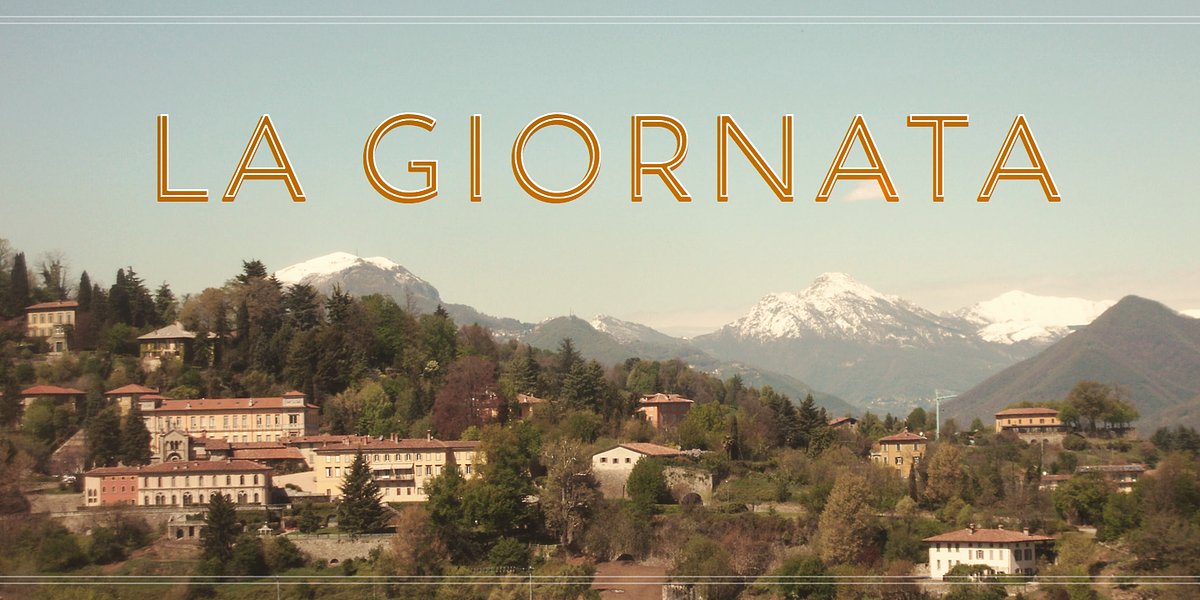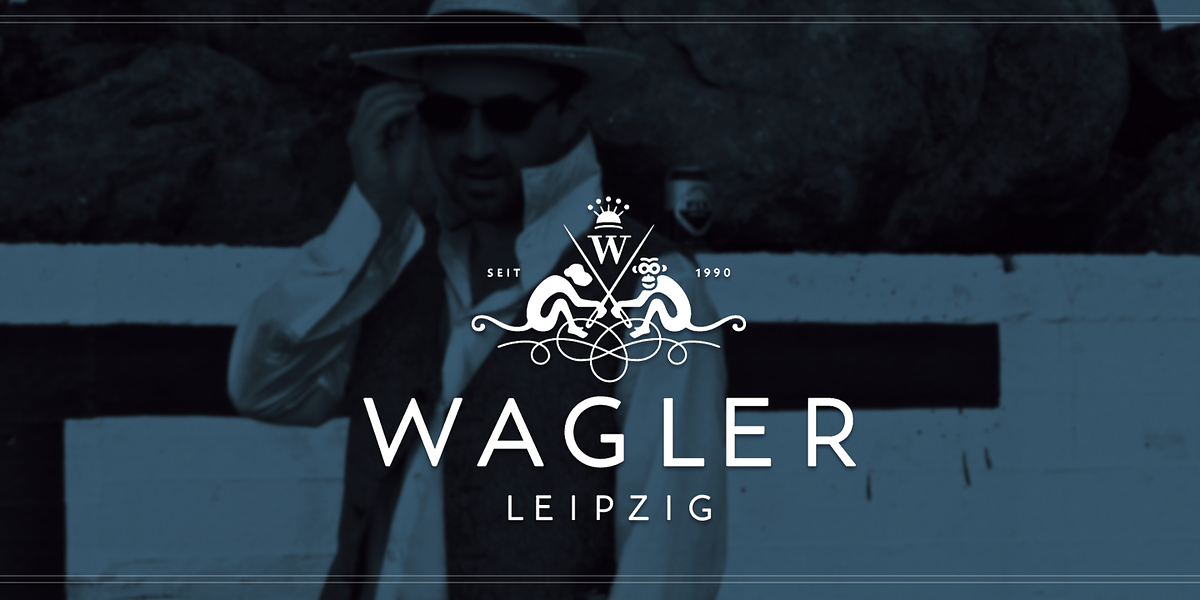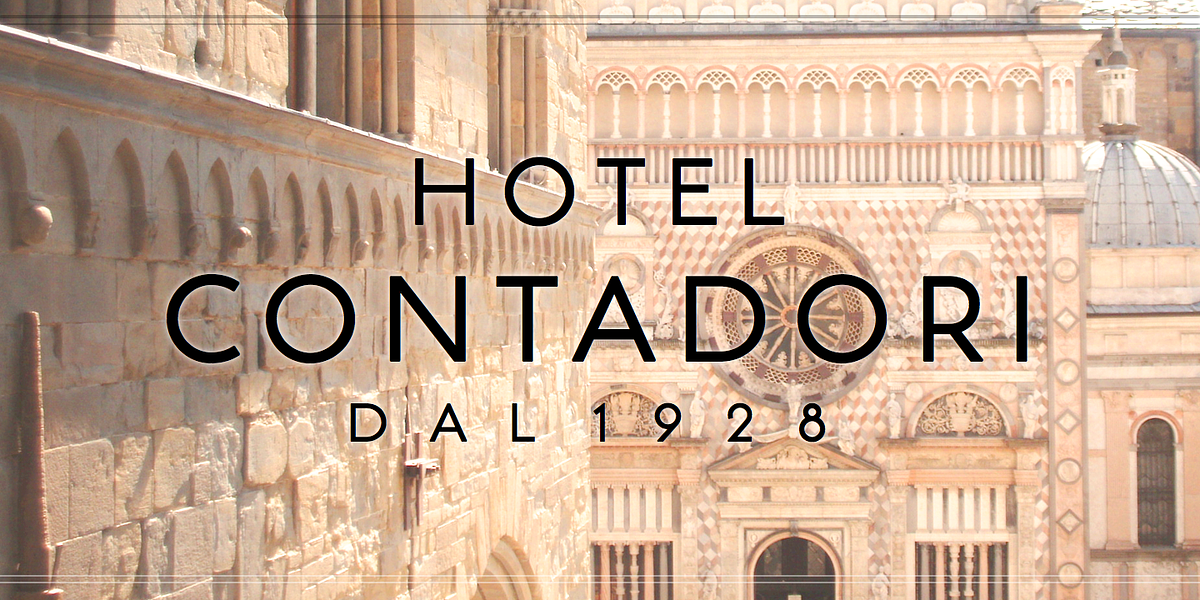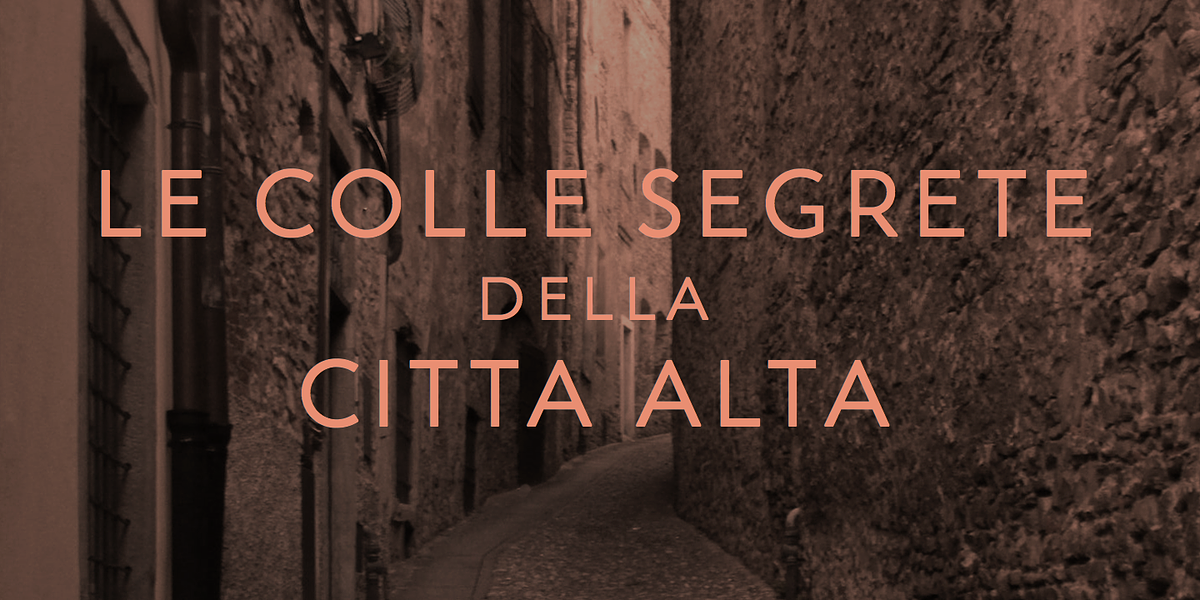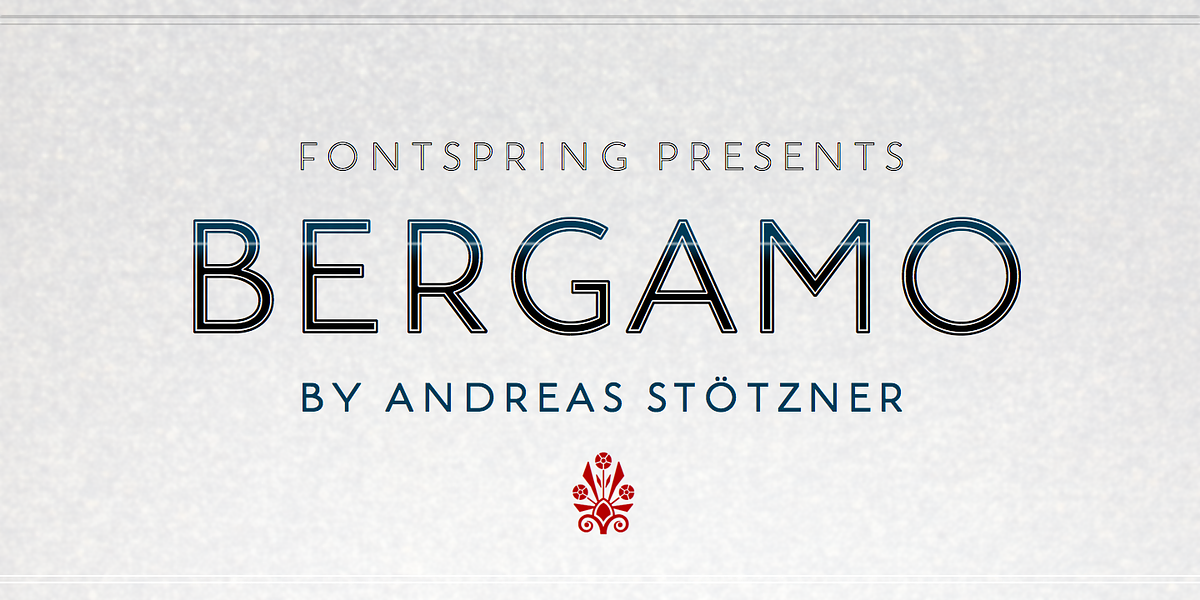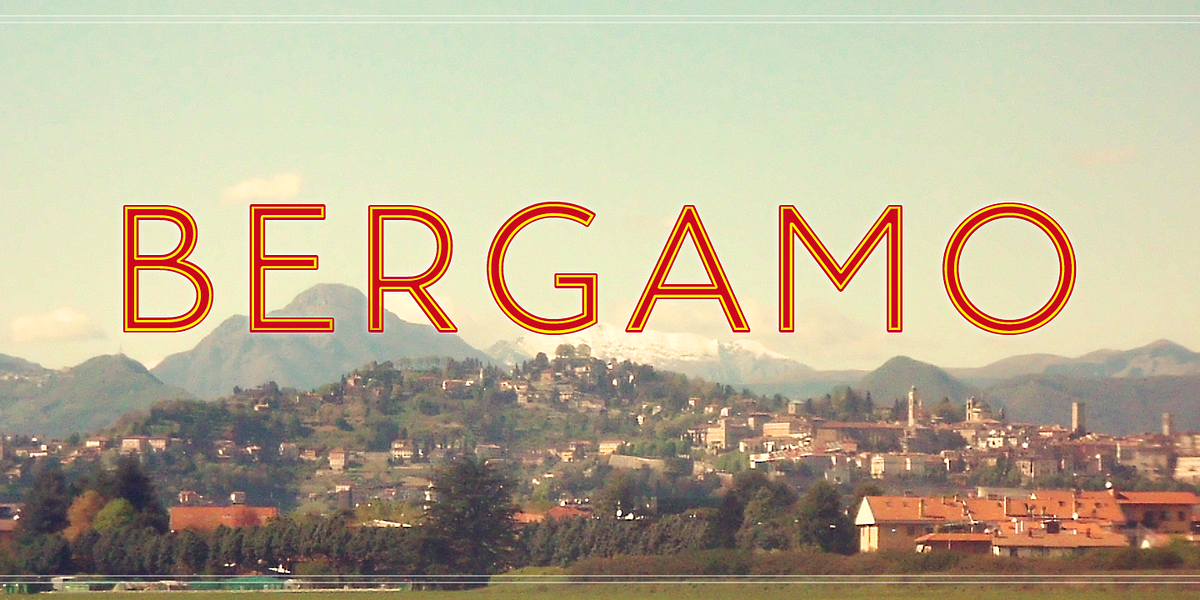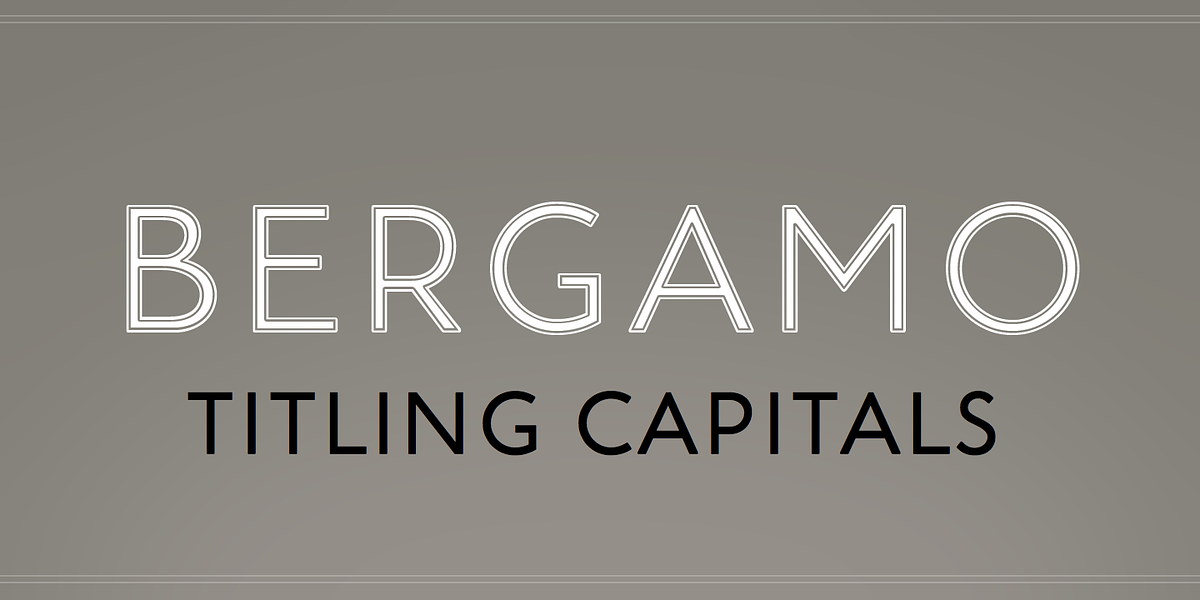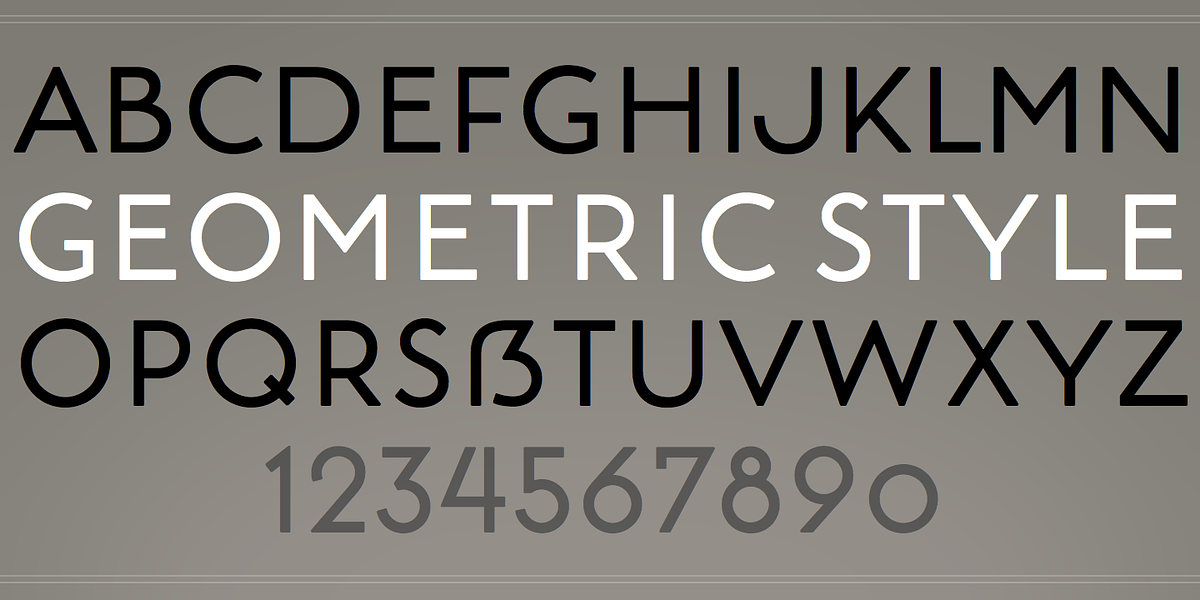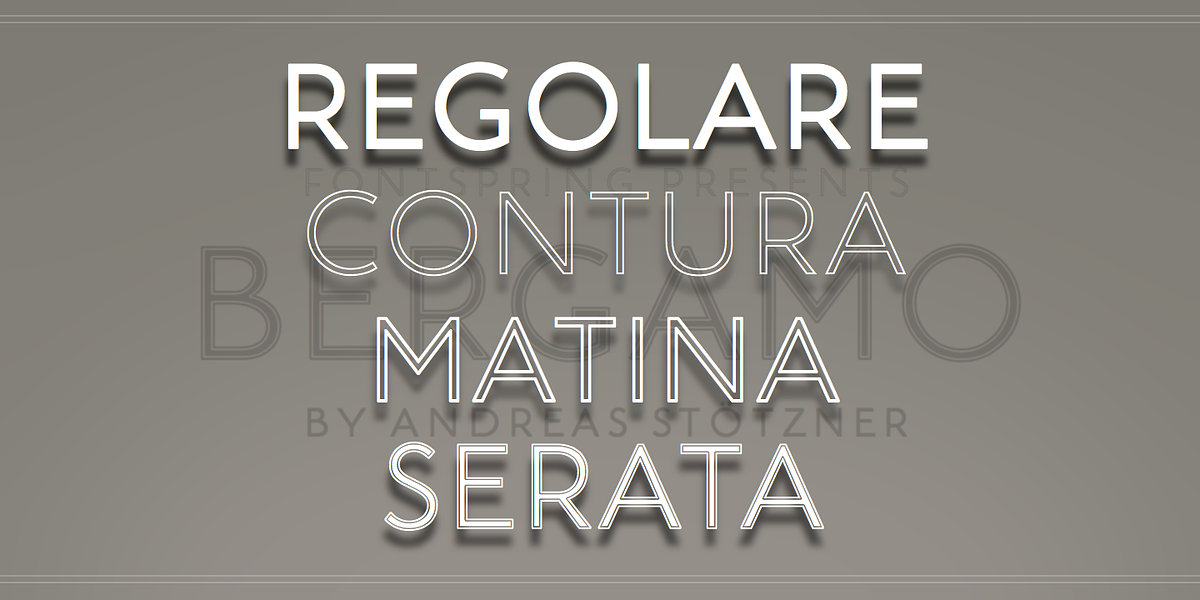
BERGAMO
Bergamo is a geometric sans serif typeface designed for display purposes. It features a modern, elegant aesthetic with carefully crafted details and proportions. The font's subtle rounded finish adds a touch of warmth and sophistication. Bergamo is available in regular weight and three contoured versions, allowing for versatile design applications.